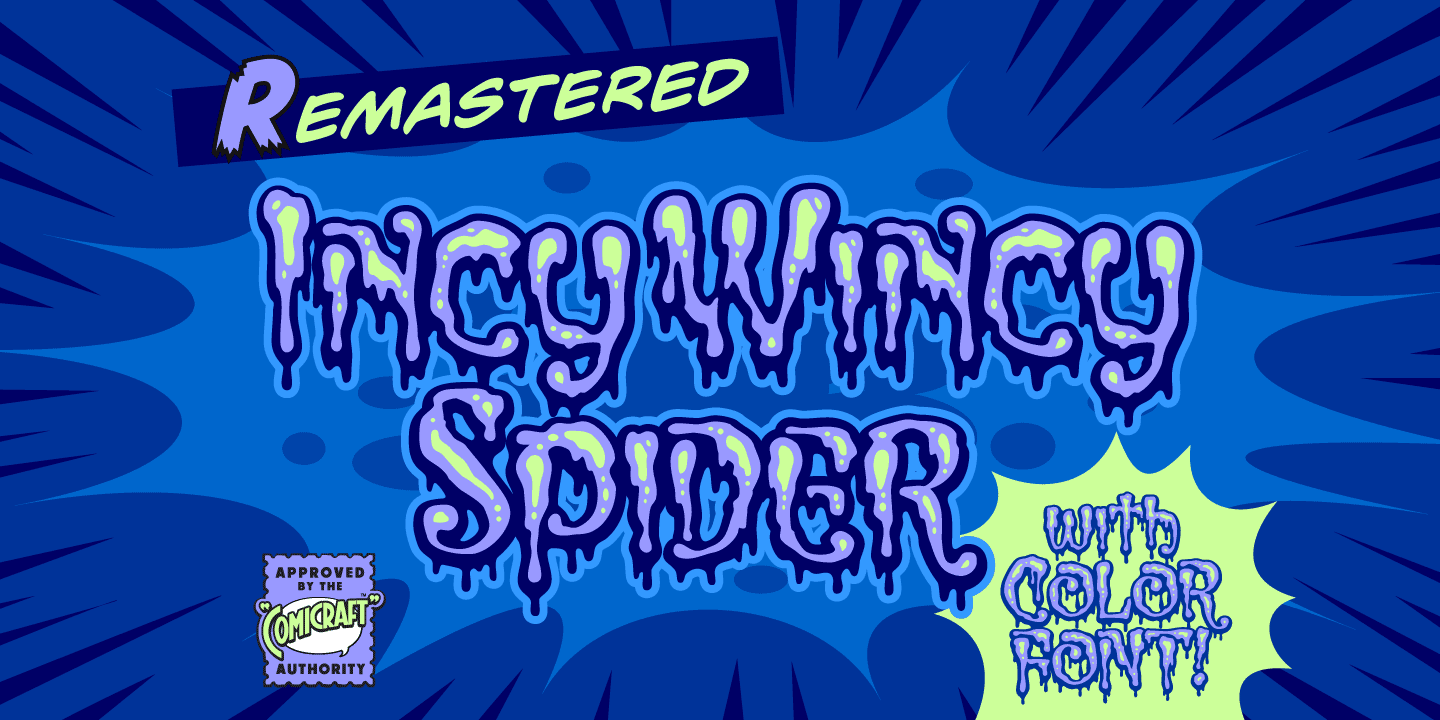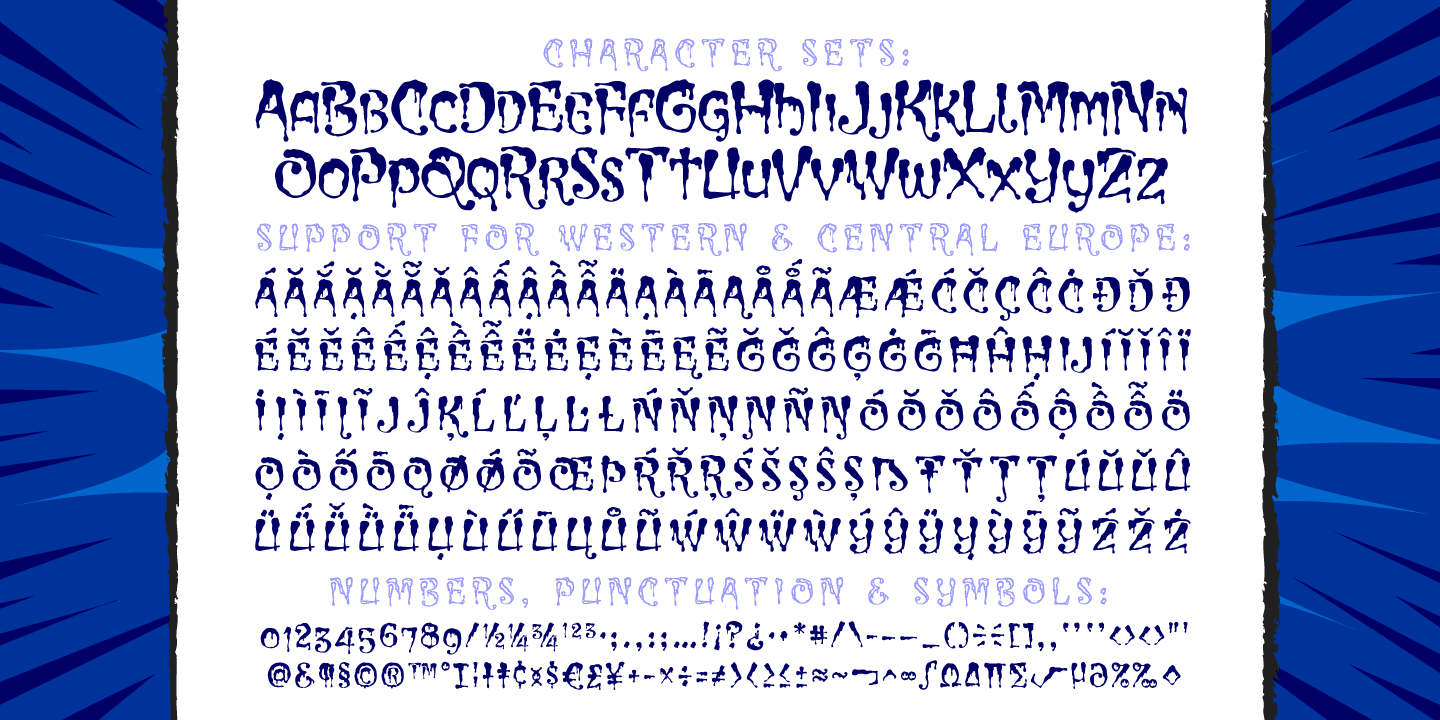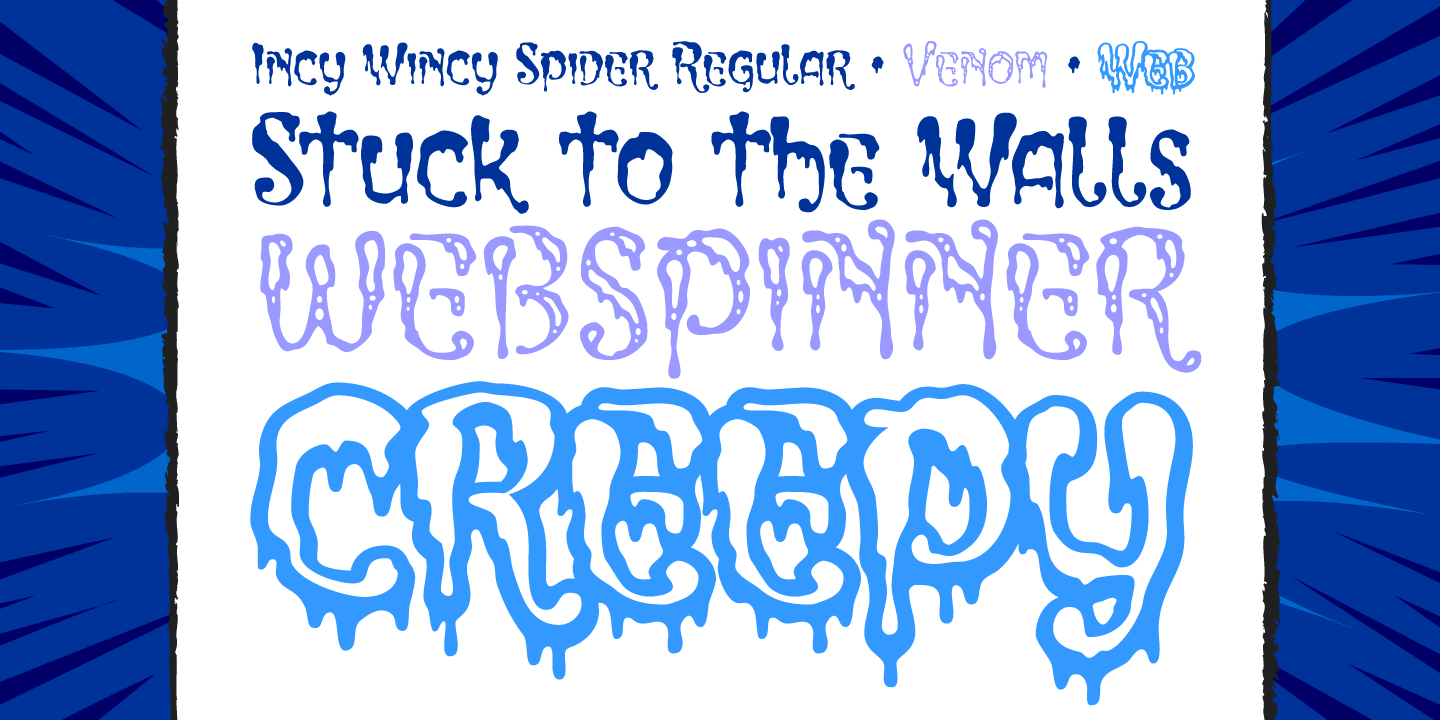
Incy Wincy Spider
Font Family by Comicraft Fonts
Spun with webs in mind for the letters pages of the SPIDER-MAN books, INCYWINCYSPIDER is probably one of the World's CREEPIEST Comic Book Fonts. Handle with care - some letters may stick together!